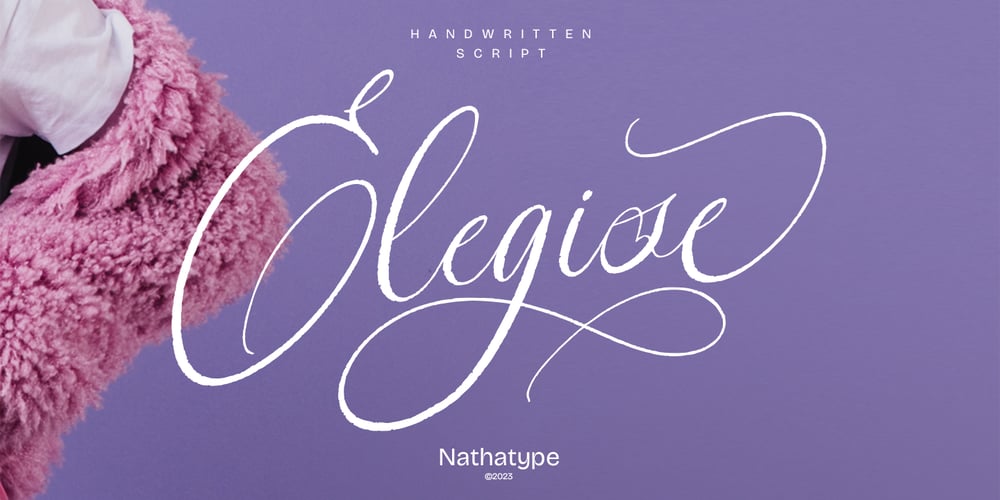
Elegise Font Family was designed by Donis Miftahudin and published by Nathatype. Elegise contains 1 styles and family package options. Elegise is a captivating script font that gracefully captures the essence of cursive handwriting with a touch of elegance. This typeface exudes an air of sophistication and refinement, making it perfect for projects that require a stylish and polished look. Each letter in this font is meticulously crafted with high contrast, adding a dynamic and eye-catching quality to the font. The combination of thick and thin strokes creates a sense of fluidity and movement, adding a touch of liveliness to your typography. The long swinging endings in some letters of Elegise bring a sense of graceful flair and drama to the font. These charming details add a touch of elegance and uniqueness, making the script come to life with a sense of poise and grace. For the best legibility you can use this font in the bigger text sizes. Enjoy the available features here.Features: Stylistic Sets Ligatures Multilingual Supports PUA Encoded Numerals and Punctuations Elegise fits in headlines, logos, movie posters, flyers, invitations, greeting cards, branding materials, print media, editorial layouts, headers, and many more. Find out more ways to use this font by taking a look at the font preview.Thanks for purchasing our fonts. Hopefully, you have a great time using our font. Feel free to contact us anytime for further information or when you have trouble with the font. Thanks a lot and happy designing.